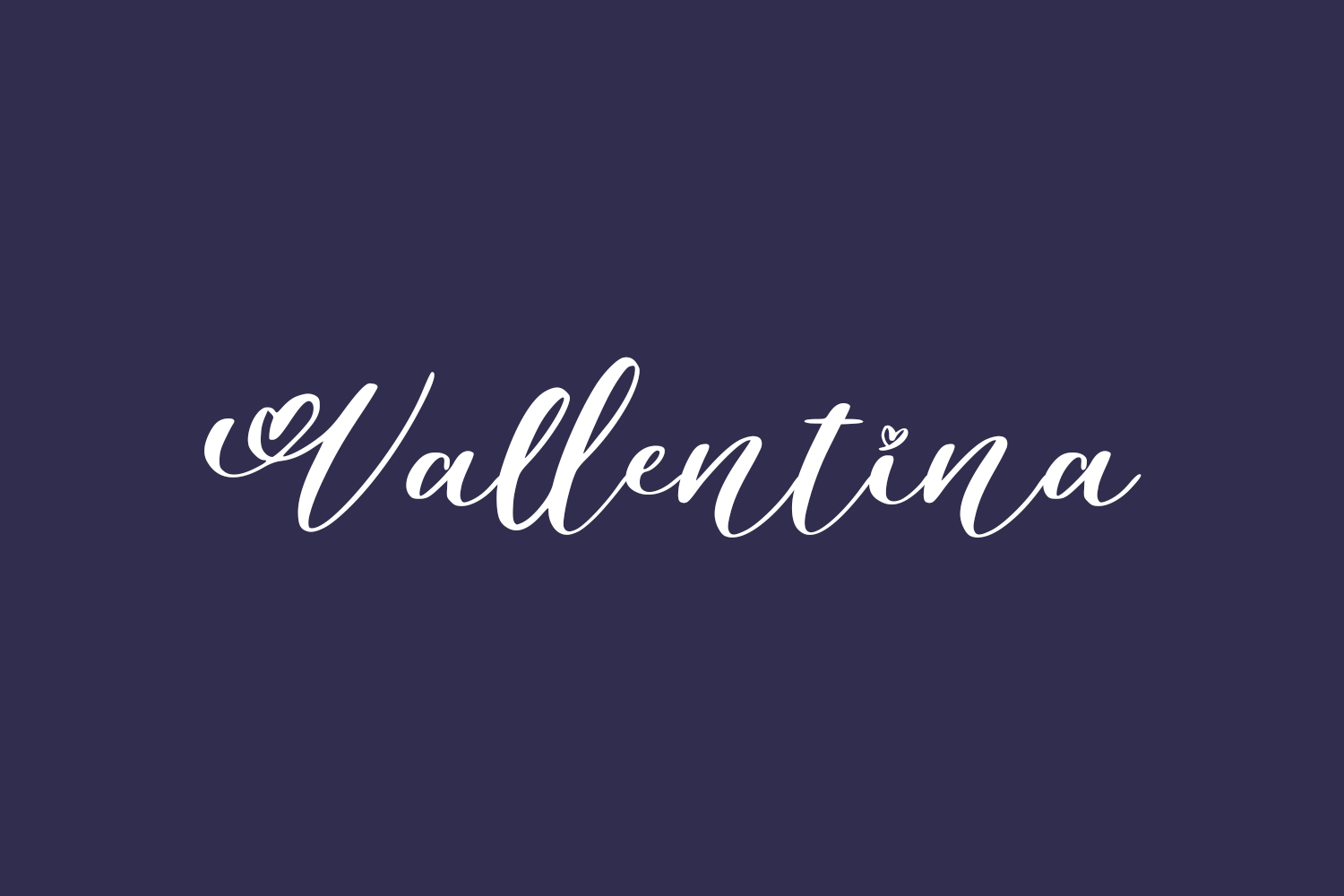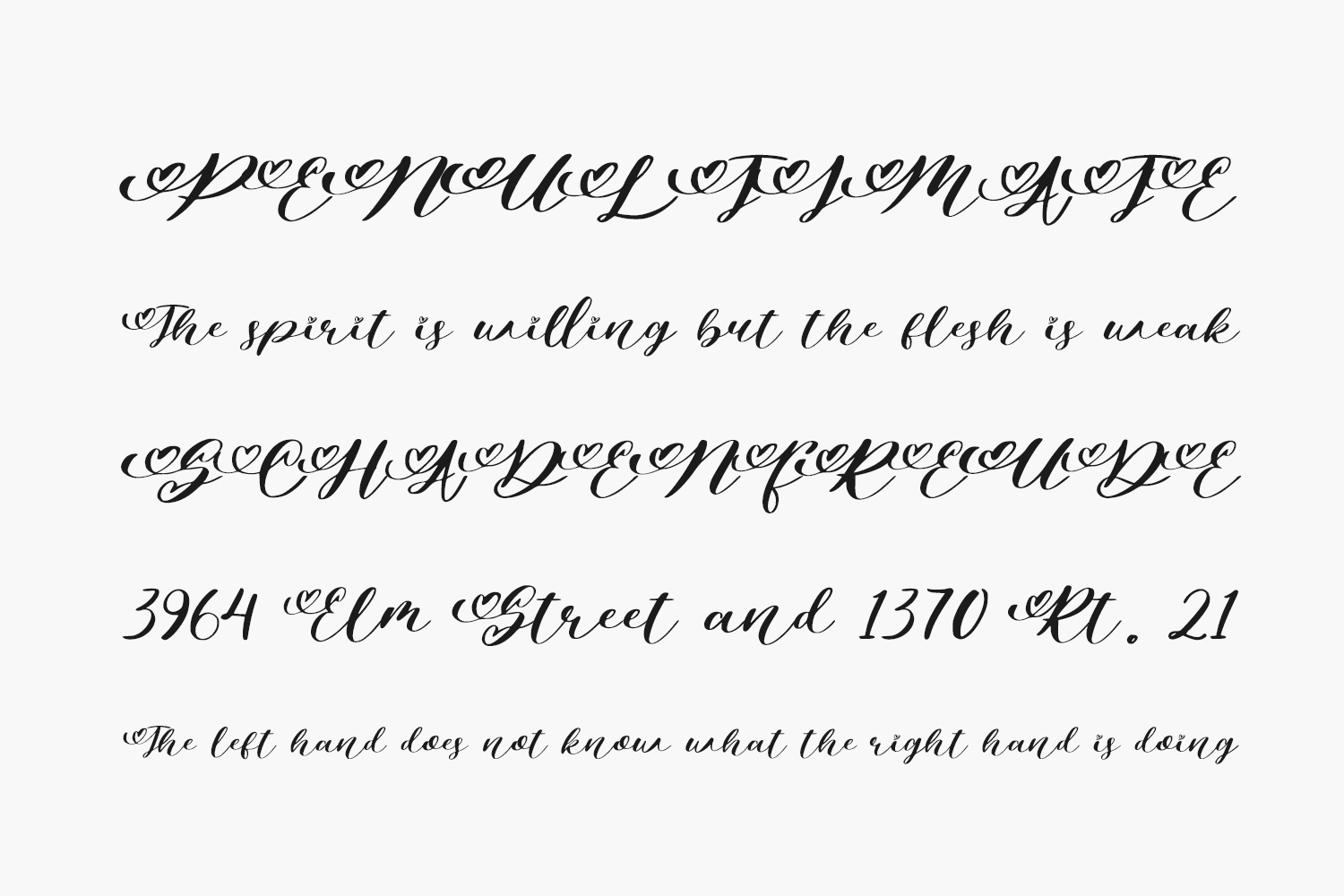
Vallentina Free Font is an elegant and flowing handwritten font. Vallentina Free Font is free for personal use only. Please purchase the full version for commercial use.
Designed by Mengulirpena